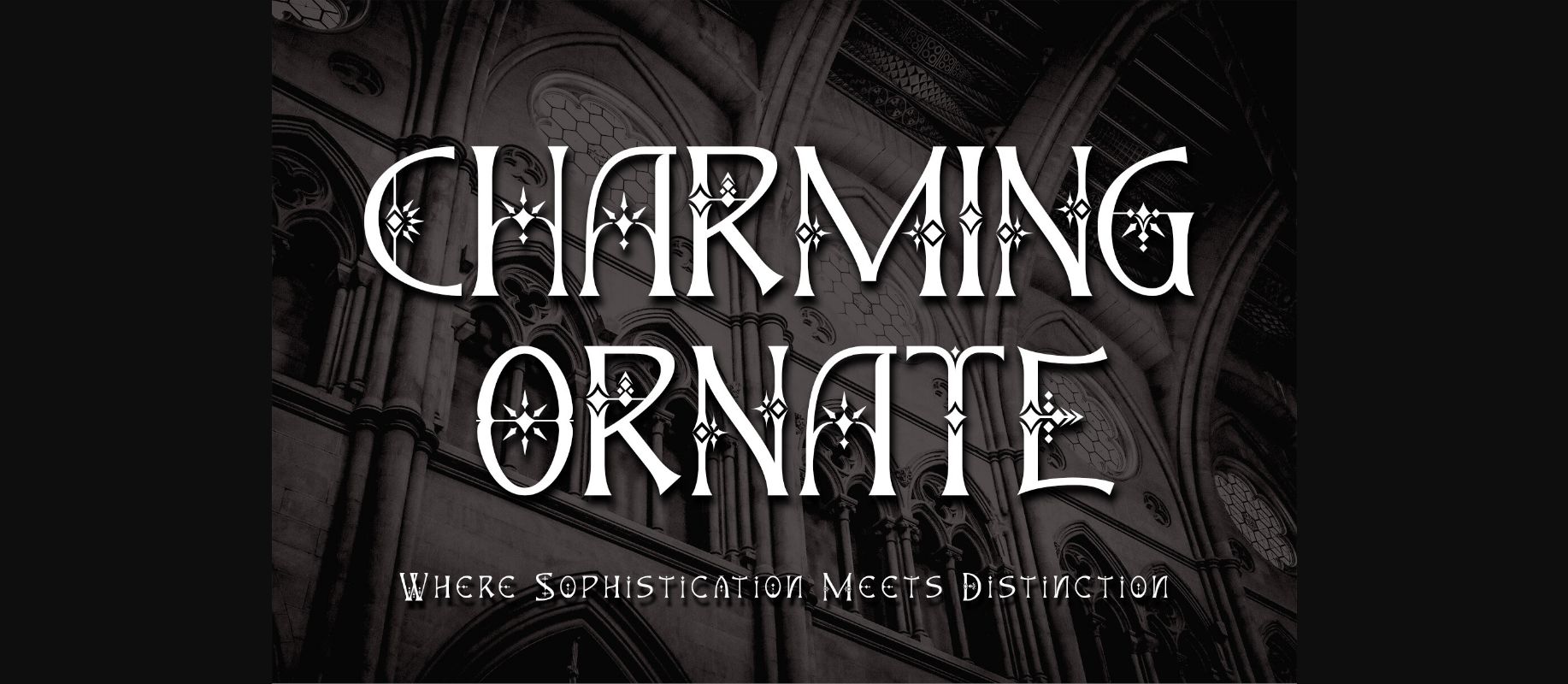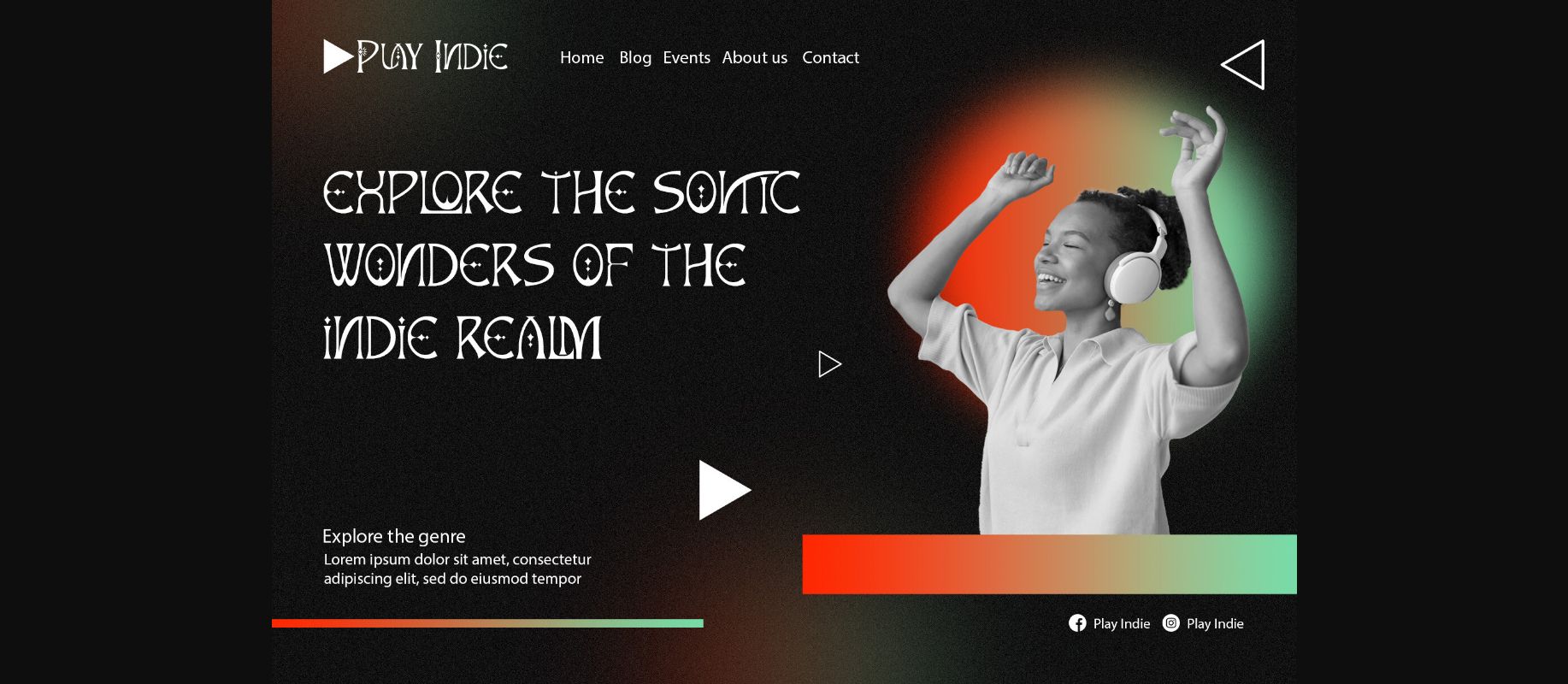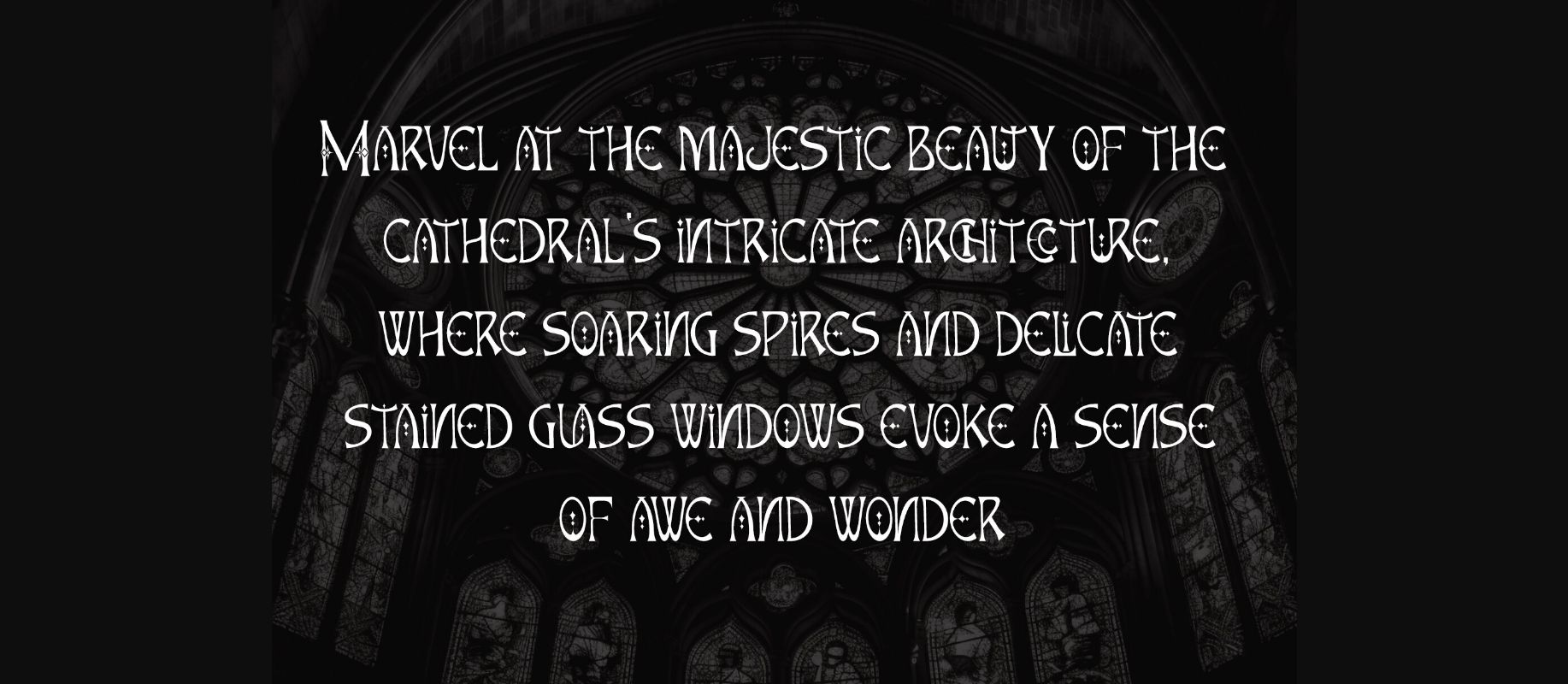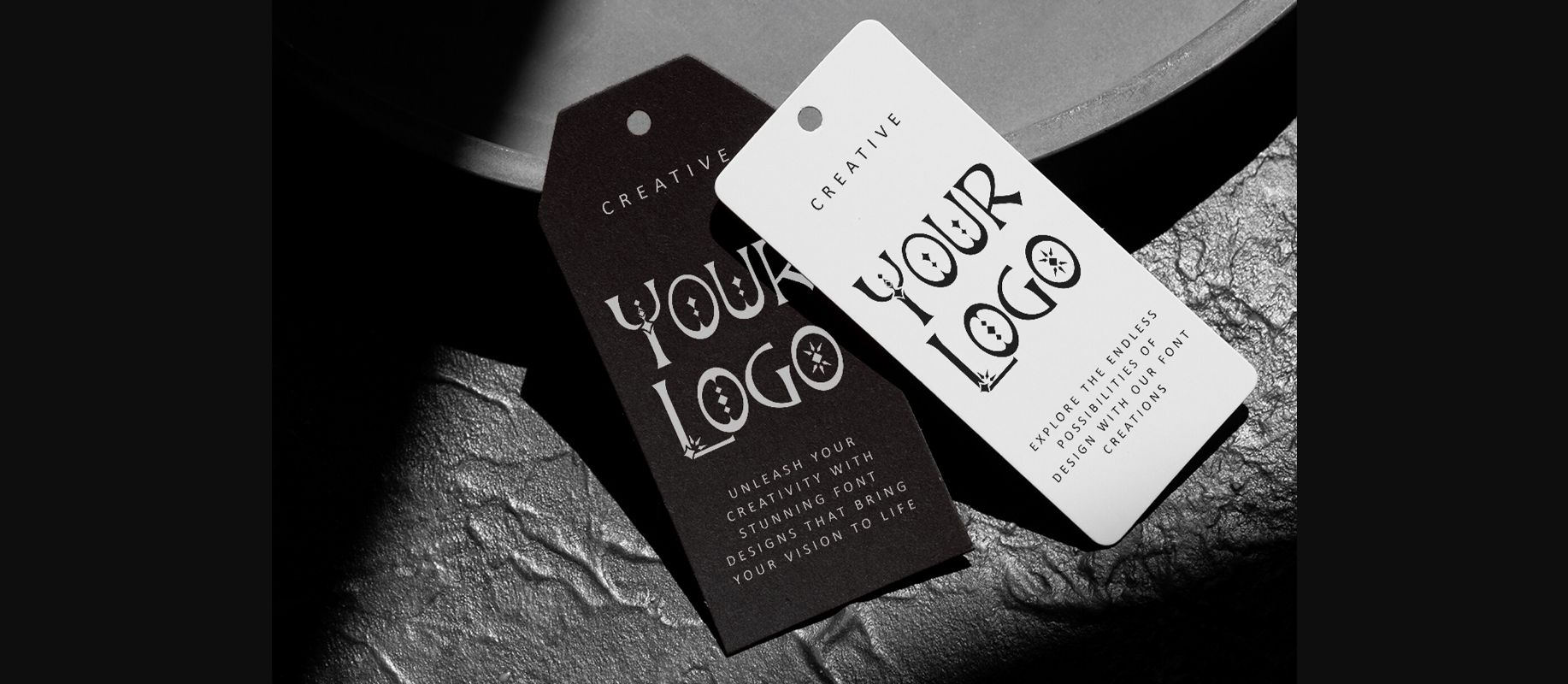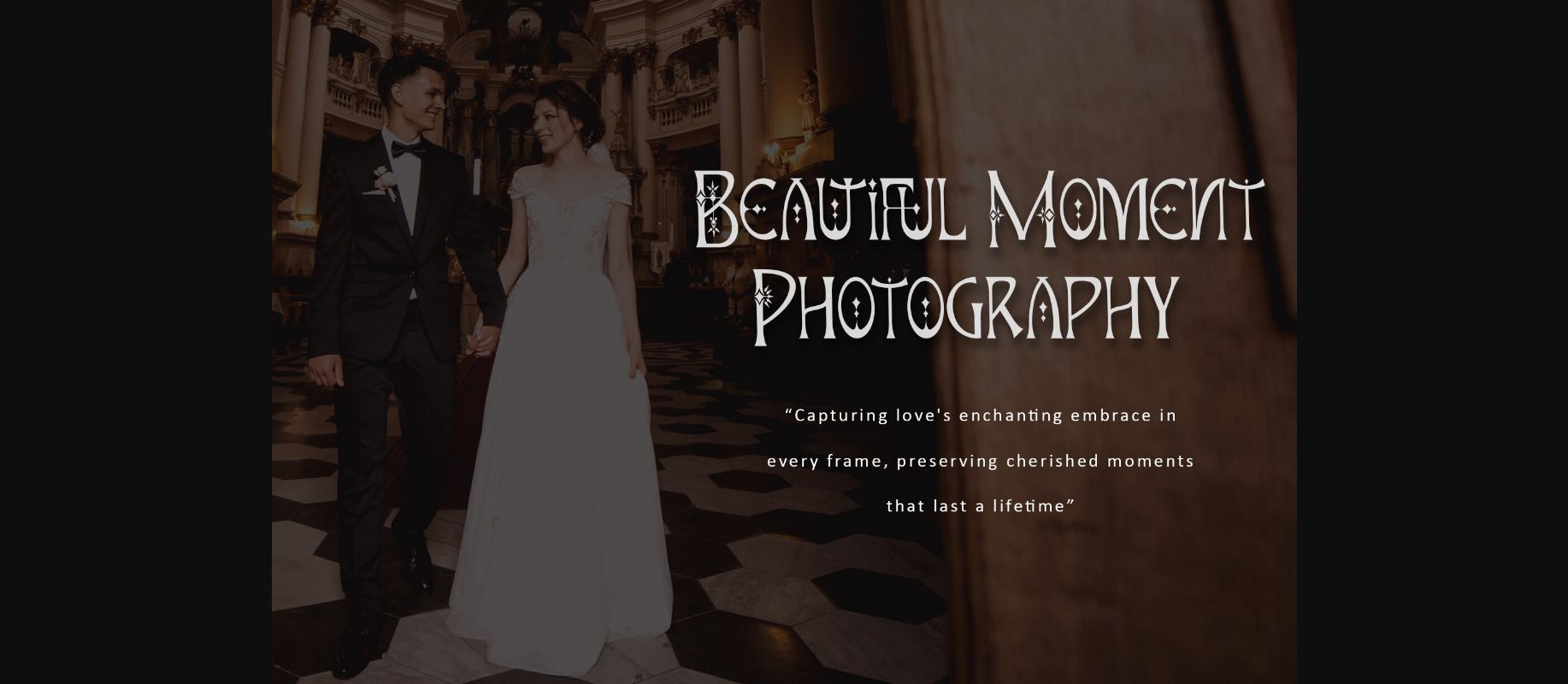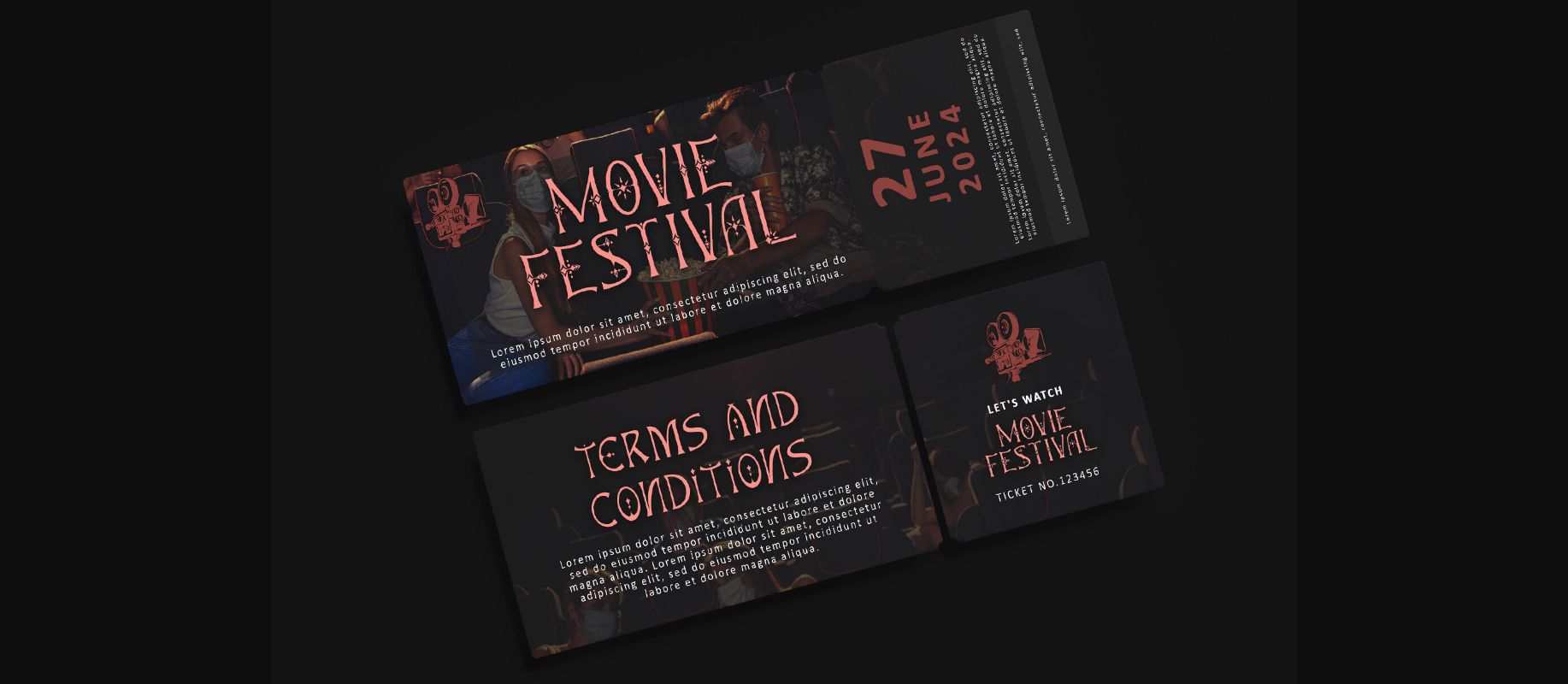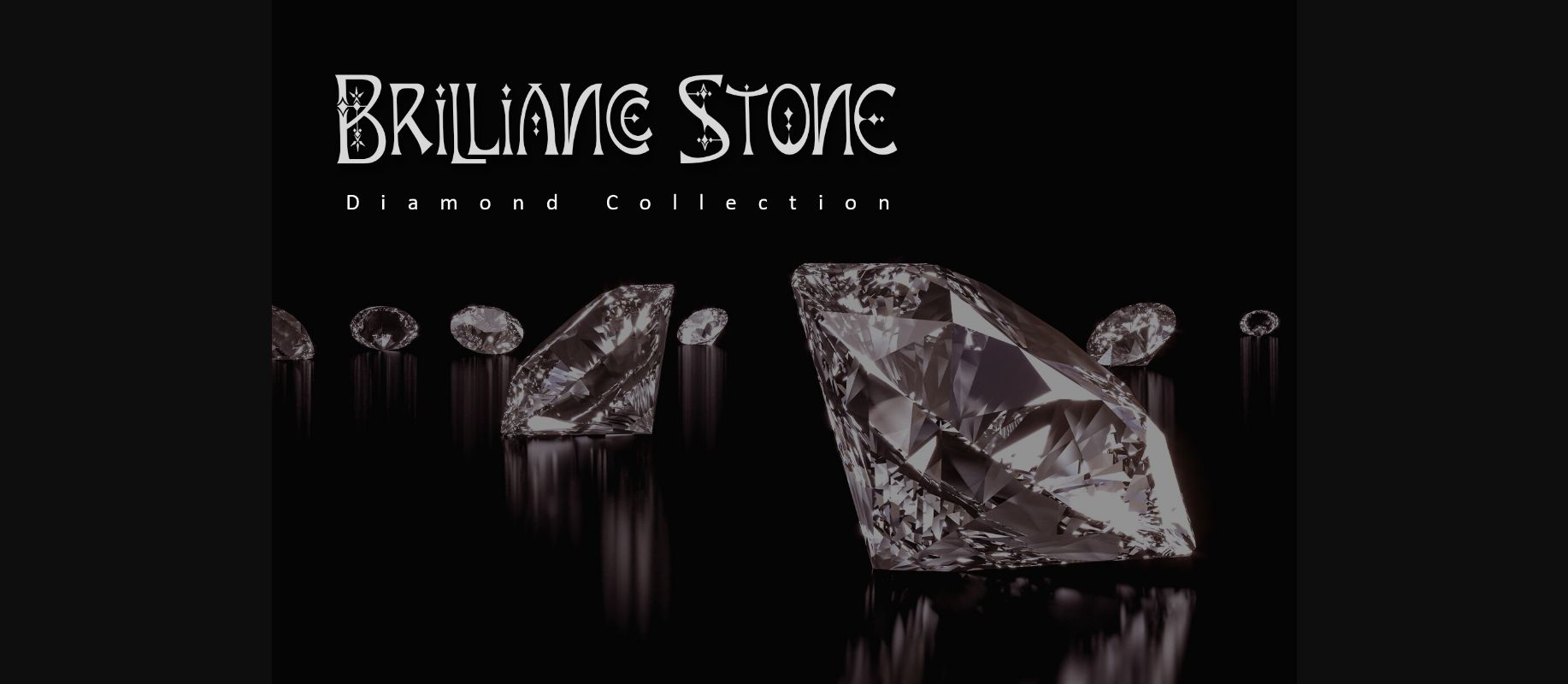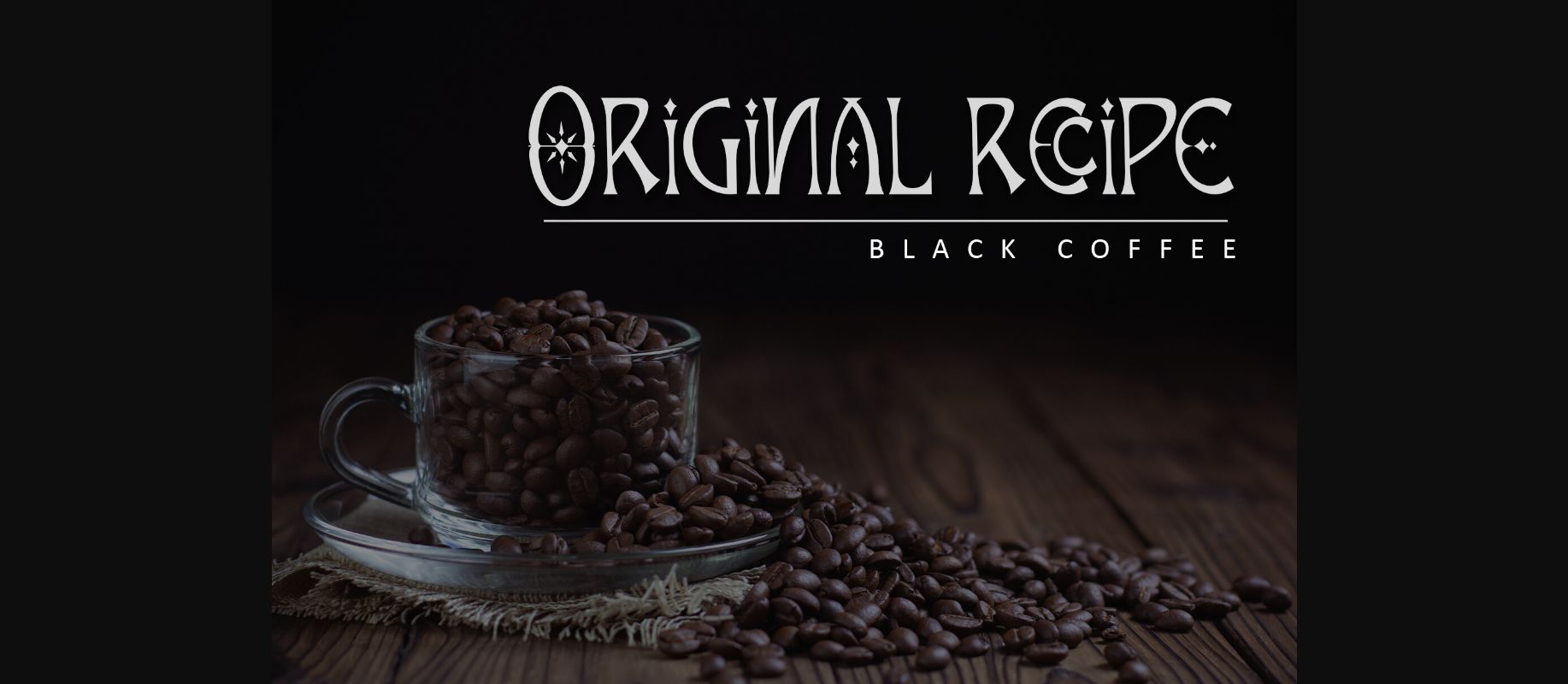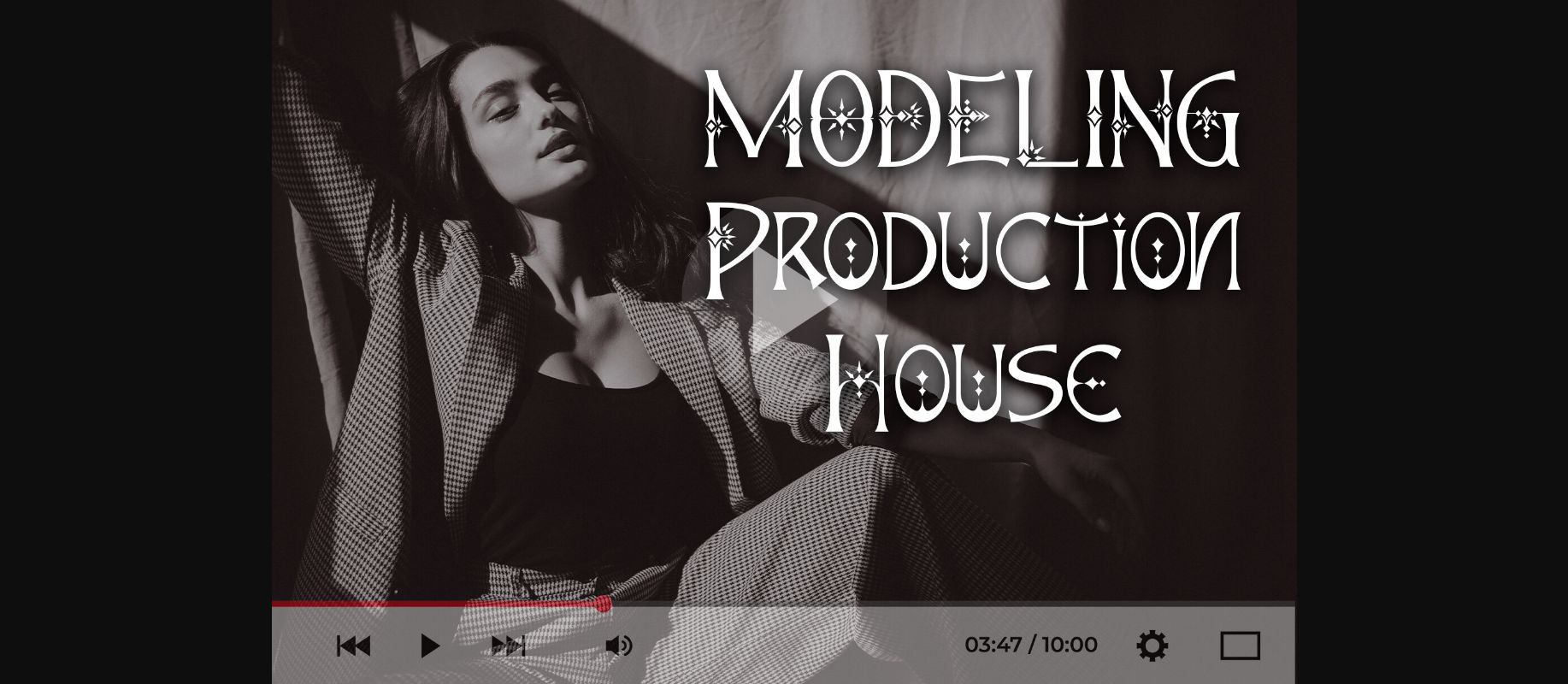
Charming Ornate Font
About Charming Ornate Font
Explore the enchantment of Charming Ornate, a captivating serif font that harmoniously combines bold elegance with unique character forms. Ideal for elevating diverse design projects, from product packaging to branding, this font’s PUA encoding provides effortless access to a plethora of distinctive glyphs and swashes, promising exceptional outcomes for your creative ventures.